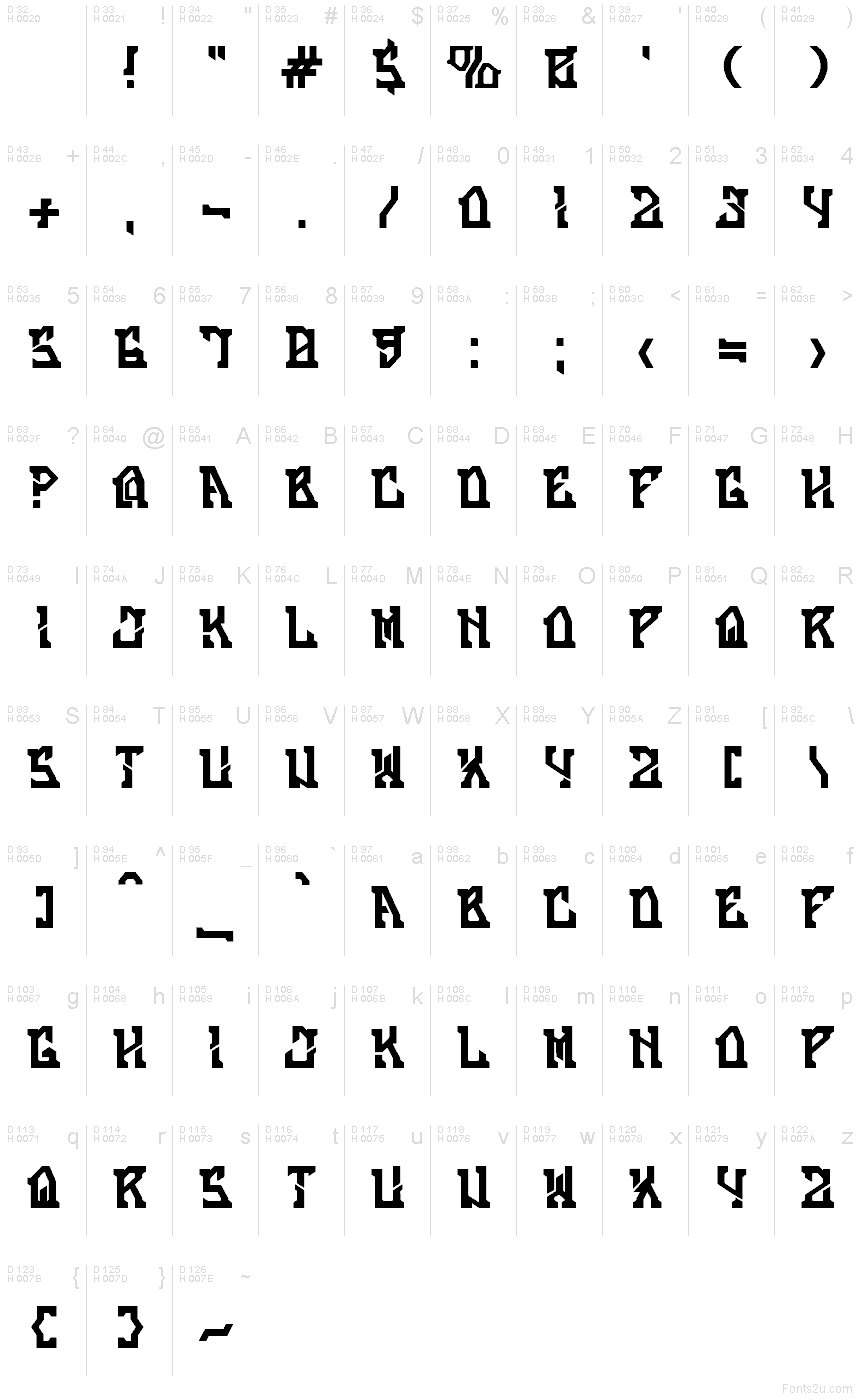
Optimazer font by Dhabee Studio is a free futuristic display typeface that looks like it’s been carved out of metal plating. Thick, blocky forms are sliced with sharp diagonal cuts, creating a dense, mechanical rhythm that instantly reads as sci-fi and cyberpunk. The letters lock together like parts of a mech suit, giving your titles a heavy, industrial presence that still feels sleek and fast.
Using Optimazer, this free font shines on gaming logos, esports team identities, sci-fi movie posters, tech event branding, YouTube or Twitch banners, and bold album covers. Its compact structure holds up at large sizes, where the angular details and stencil-like gaps feel most dramatic. Pair Optimazer with a clean geometric sans in smaller text to keep everything legible while letting these heavy, futuristic shapes steal the spotlight.